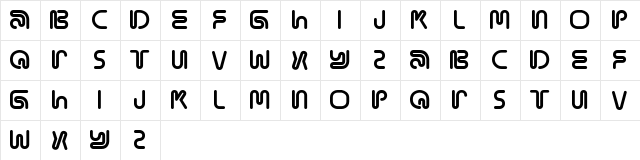
MamaRound Regular
Design Context for MamaRound Typeface
MamaRound uses gentle rounded endings to create a warm, inviting typographic personality — less corporate than geometric sans, more refined than playful display fonts.
Well-suited to UI design, mobile interfaces, and any brand that wants approachability without sacrificing clarity.
Font Pairing: Pairs well with a rounded or humanist sans for body copy, maintaining the friendly tone without relying on MamaRound to carry extended reading.
Pro Tip: Use MamaRound for UI elements, app interfaces, and anywhere a friendly, approachable tone needs to be maintained without sacrificing clarity.